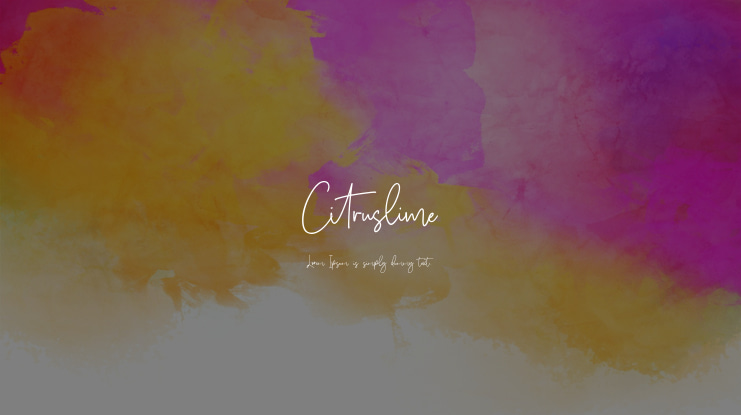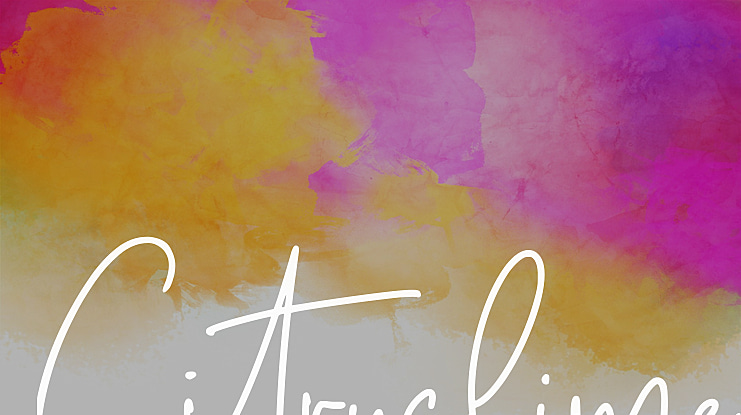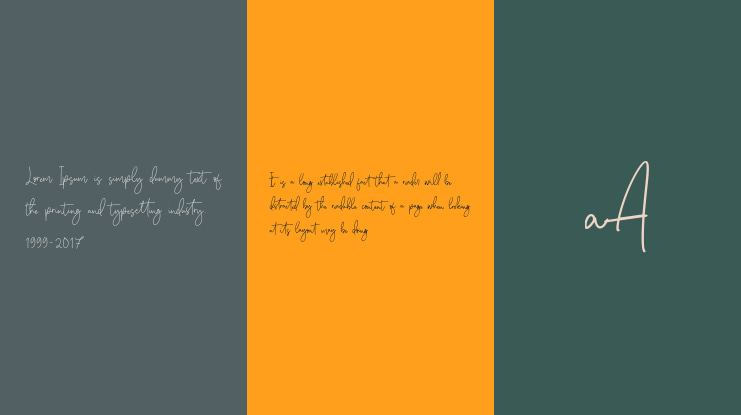
Citruslime Font
Introducing by Letterative Studio : Citruslime Font
Citruslime is a Modern Monoline Handwritten Script Font
Citruslime is perfect for product packaging, branding project, magazine, social media, weddings, or just used to express words above the background.
Citruslime also multilingual support